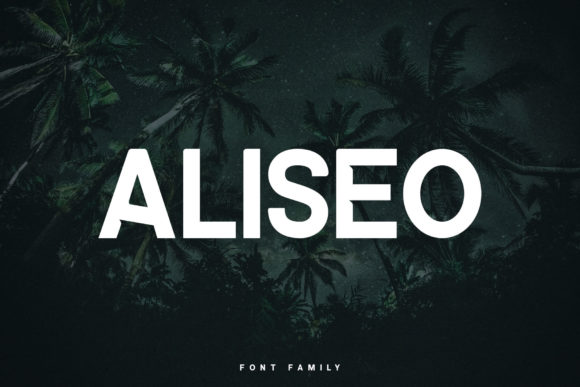
The Aliseo Font: A Designer’s New Best Friend
I still remember the frustration of working on a branding project for a client who wanted a strong, classic look. I had spent hours scrolling through font libraries, but nothing seemed quite right. That was until I stumbled upon the Aliseo font. Its clean lines and versatile sans-serif design immediately caught my eye, and I knew I had found the perfect fit. In this article, I’ll share my experience with Aliseo, its features, and how to make the most of it in your designs.
An Honest Review of Aliseo
What I Love About Aliseo
• ✨ Clean and modern design: Aliseo’s sans-serif design makes it perfect for a wide range of projects, from branding to digital media.
• ✅ Highly versatile: Whether you need a font for headings or body text, Aliseo adapts seamlessly.
• 💡 Excellent legibility: Even at small sizes, Aliseo remains clear and easy to read.
• 🎨 OpenType features: Aliseo supports a range of OpenType features, including stylistic alternates and glyphs, giving you plenty of creative options.
While Aliseo is an excellent font, there are a few things to keep in mind:
• 🤔 Limited italic styles: Aliseo’s italic styles are a bit limited, which might be a drawback for some projects.
• ⚠️ Not ideal for body text: While Aliseo is legible, it’s primarily designed for headings and titles. For longer body text, you might want to pair it with a complementary font.
The Backstory of Aliseo
Aliseo was designed with the goal of creating a strong, classic font that could be used in a wide range of applications. Its clean lines and versatile design make it perfect for branding, digital media, and more. While the designer’s exact inspiration may be unknown, it’s clear that Aliseo was crafted with attention to detail and a passion for typography.
Q: What type of projects is Aliseo best suited for?
A: Aliseo is a versatile font that’s suitable for a wide range of projects, including branding, digital media, and print materials.
Q: Does Aliseo support OpenType features?
A: Yes, Aliseo supports a range of OpenType features, including stylistic alternates and glyphs.